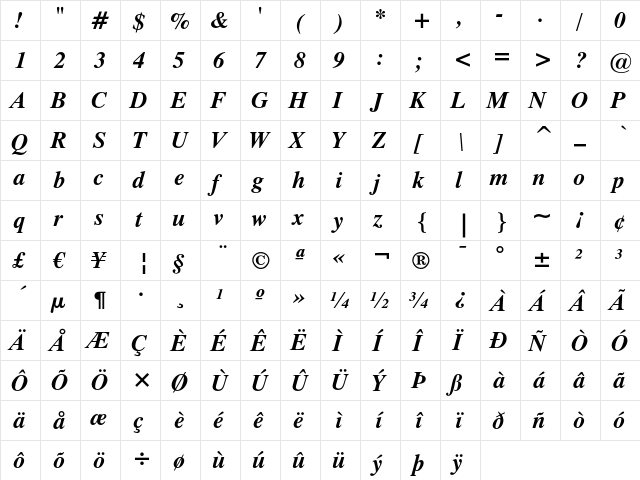
Dutch 801 Bold Italic Font Preview
Design Context for Dutch 801 Typeface
Dutch 801 offers clean, dependable letterforms without strong stylistic allegiance, making it a practical choice for designers who need flexibility. The dynamic lean of this cut emphasises speed and emphasis in any layout. The heavy weight commands attention and anchors typographic hierarchies.
Pro Tip: Try Dutch 801 for annotation and caption copy alongside an upright companion — the contrast in angle creates a dynamic but ordered typographic system.